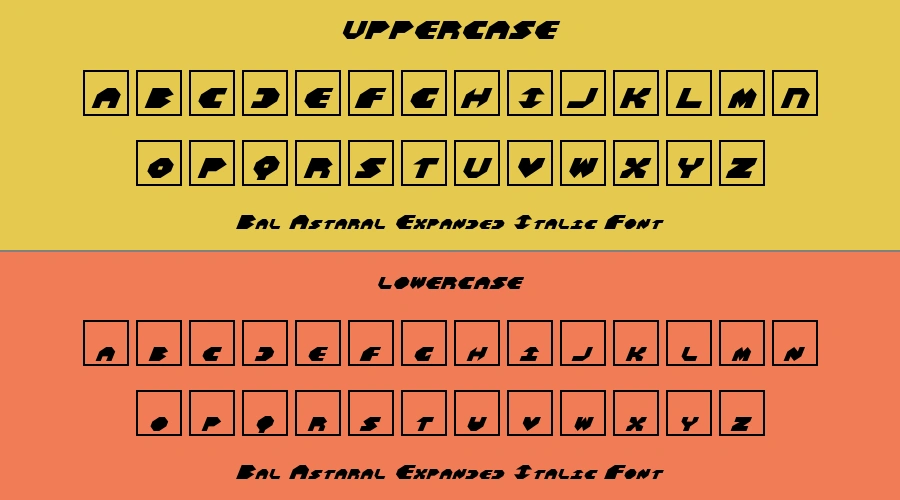
About Bal Astaral Expanded Italic Font
Bal Astaral Expanded Italic Font embodies typographic excellence through its masterful combination of flared stems and precision. Created for brand guidelines, this typeface delivers exceptional adaptability and technical precision across all applications. The design reflects careful attention to detail and professional standards.
Advanced capabilities include distinctive sharp edges and versatile arrow sets, giving designers creative control. When used in historical documents, Bal Astaral Expanded Italic Font exhibits remarkable versatility. The harmonious balance between joint construction and standards alignment sets this typeface apart.